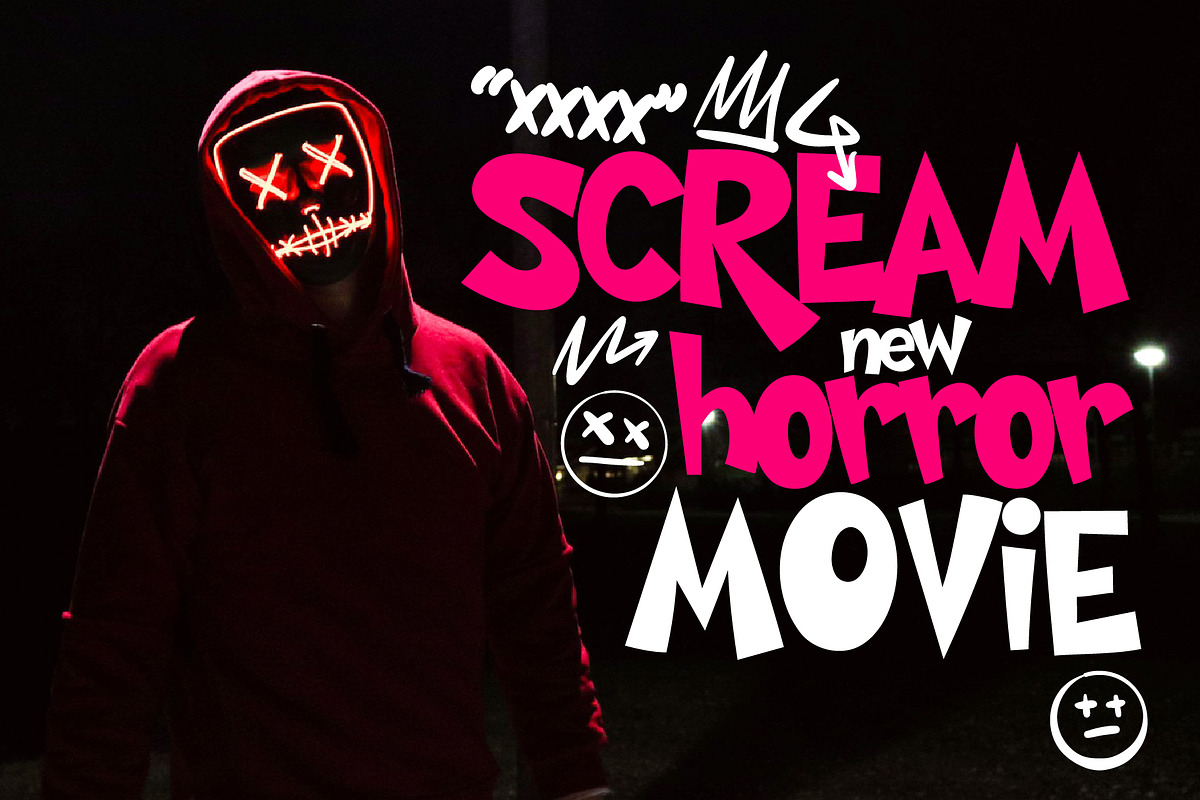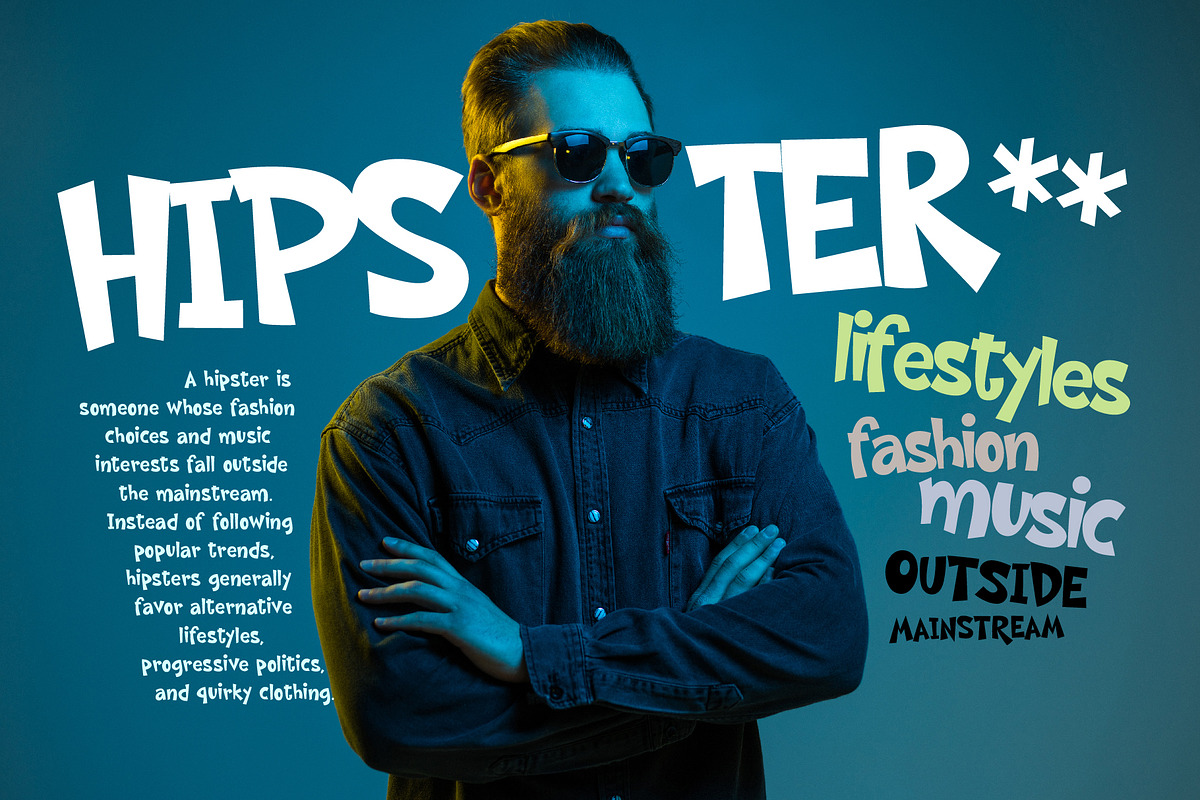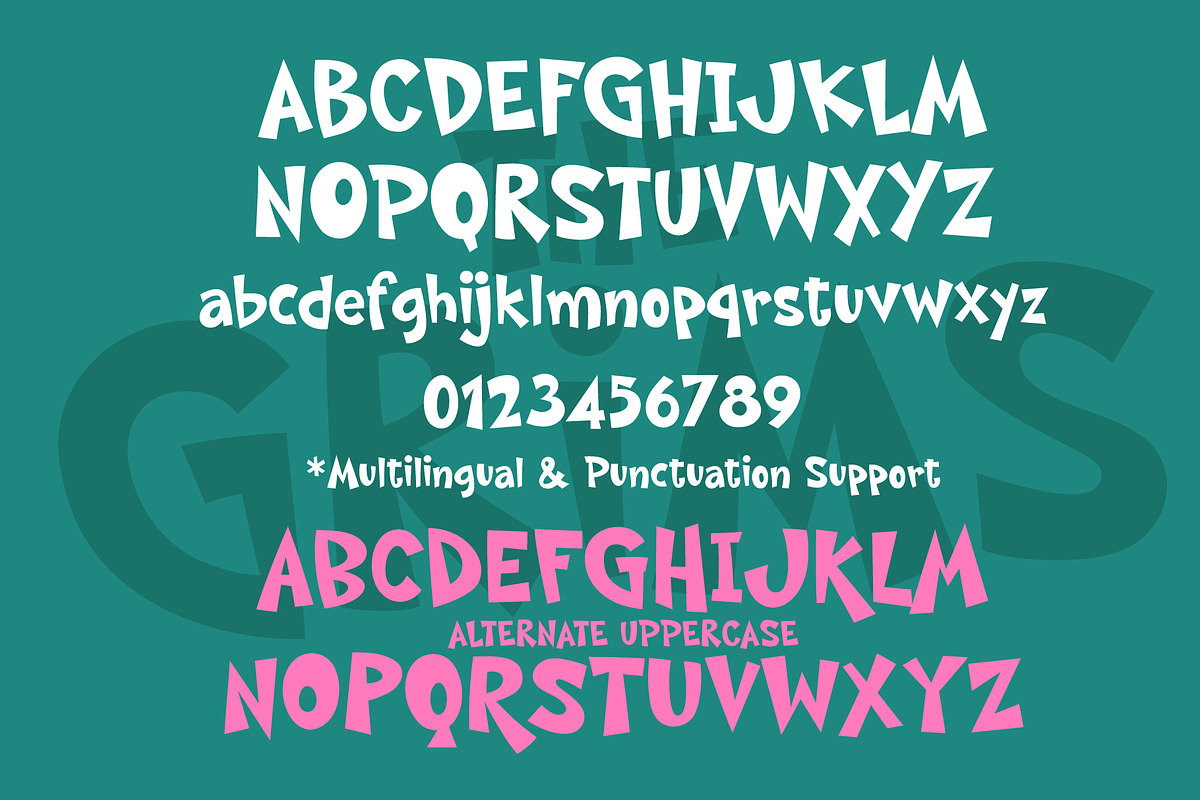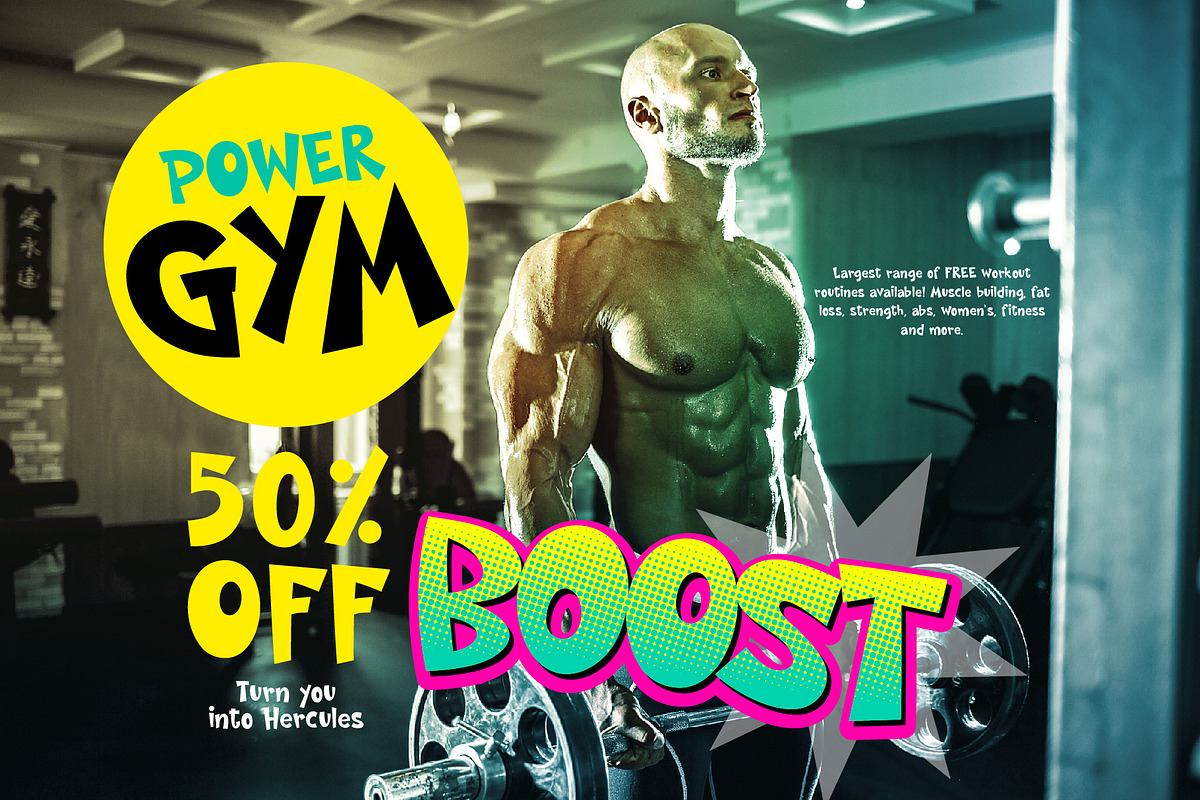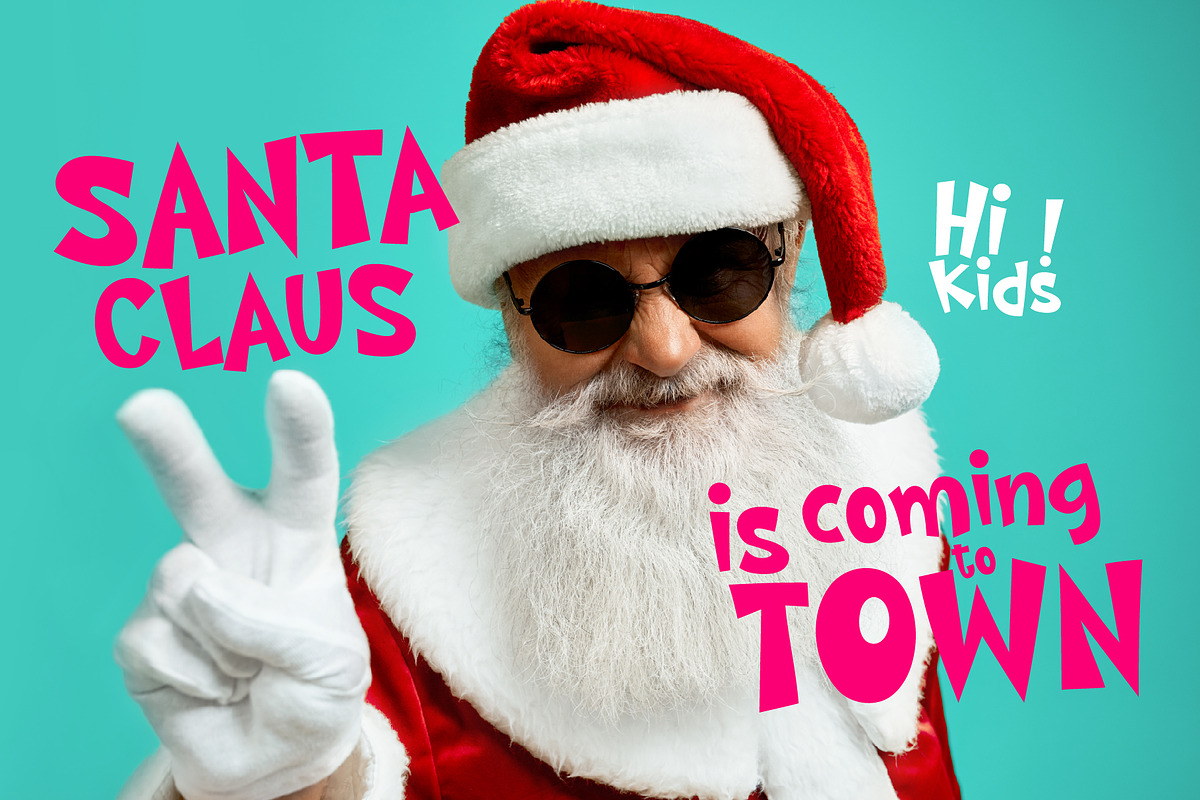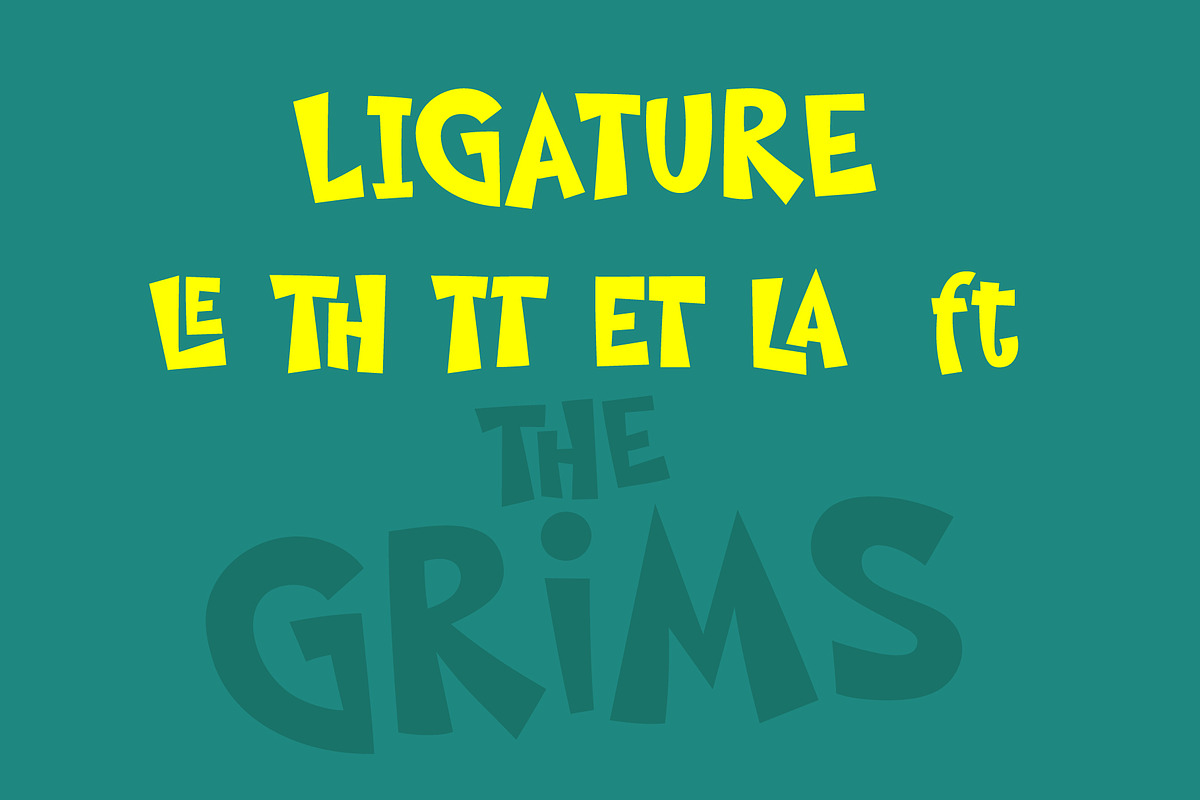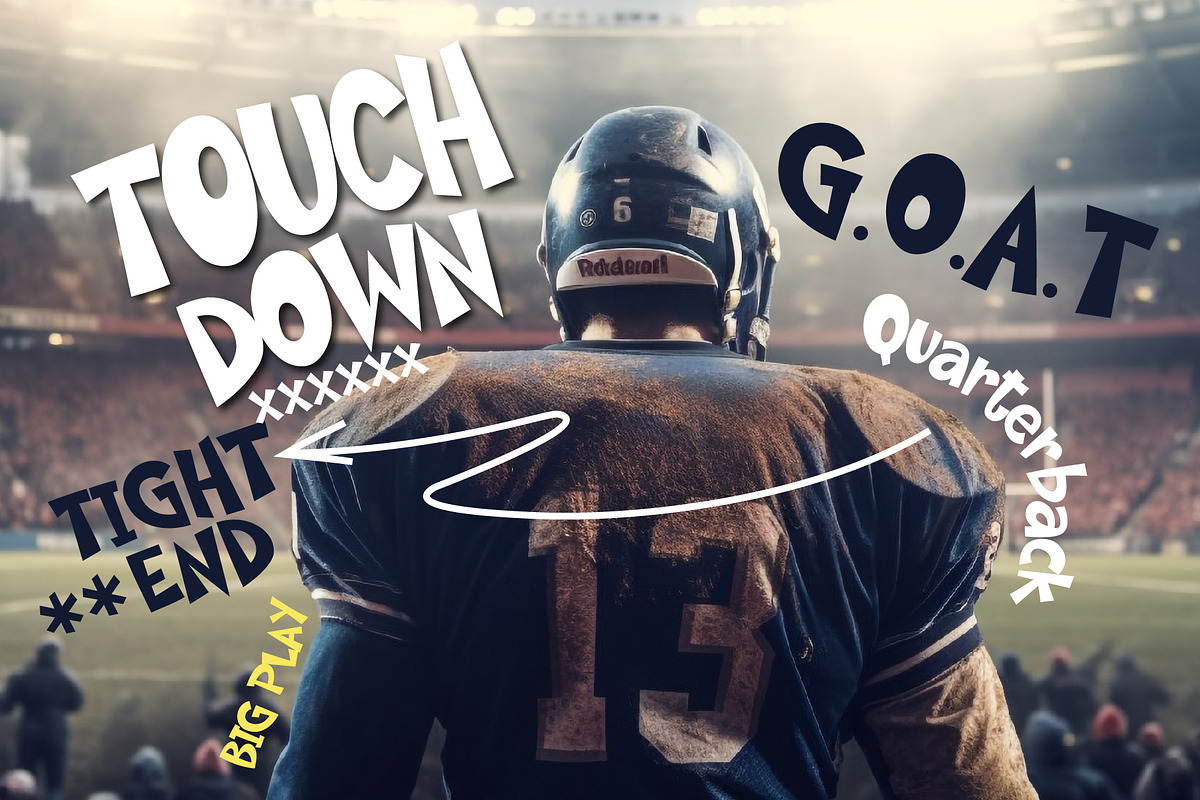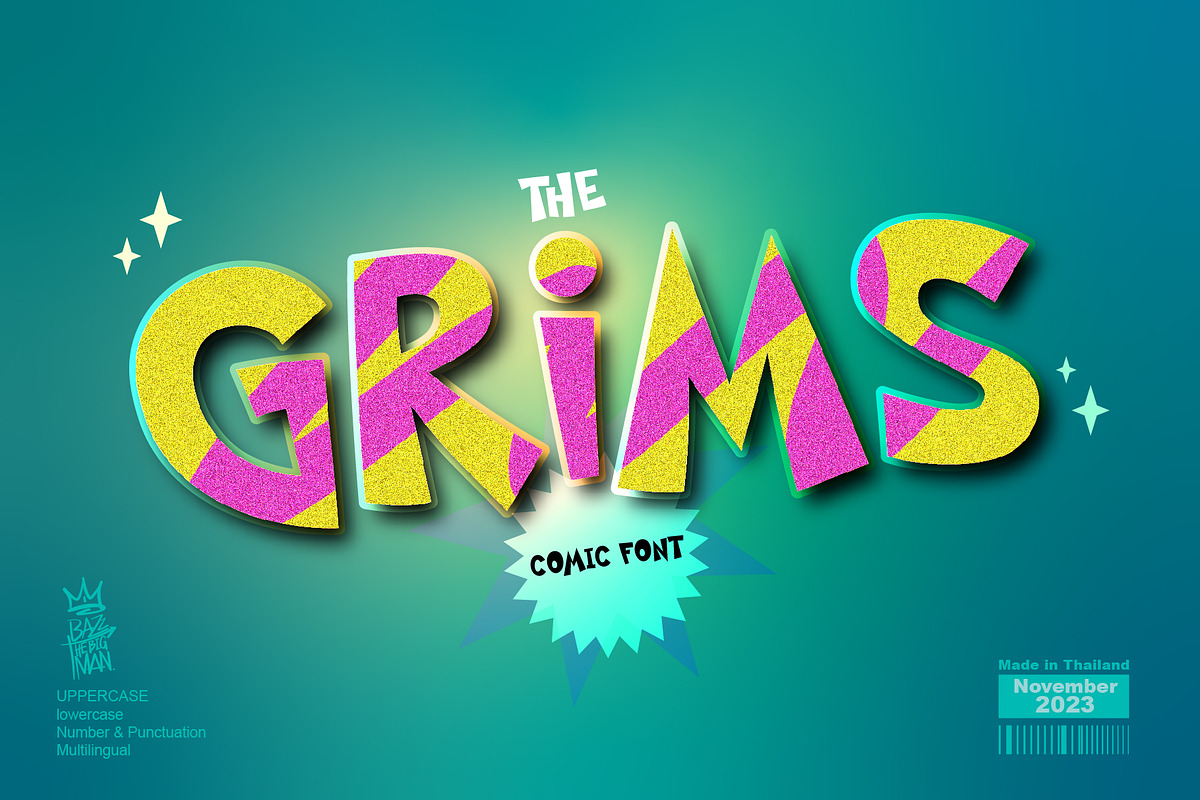
The Grims
The Grims is a playful and quirky display font. No matter the topic, this font will be an incredible asset to your font library, as it has the potential to elevate any creation. This font is PUA encoded which means you can access all the glyphs and ligatures with ease! The fonts have alternative and ligature fonts.